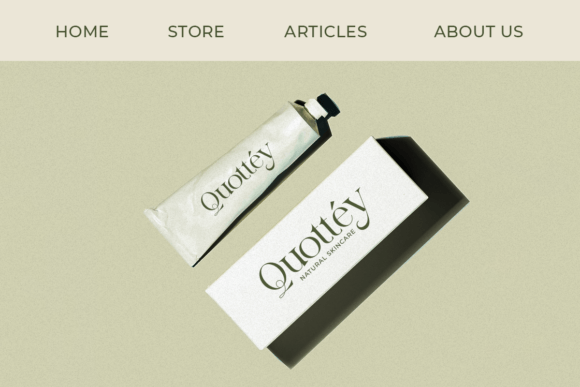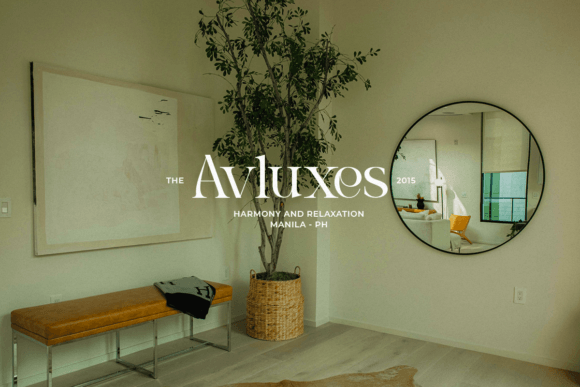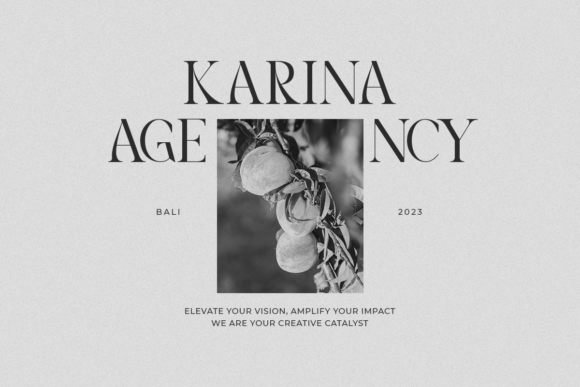
Boho Breeze Font
Boho Breeze is a Modern elegant serif typeface with Unique alternative, multilingual support with perfect kerning.This typeface is perfect for an elegant & luxury logo, classy editorial design, women’s magazine, fashion brand, cosmetic brand, fashion promotion, modern advertising design, invitation cards, art quotes, home decoration, book/cover titles, special events, Tote bags, T-shirts, Advertising, and much more.This font is PUA encoded which means you can access all of the amazing glyphs and ligatures with ease!